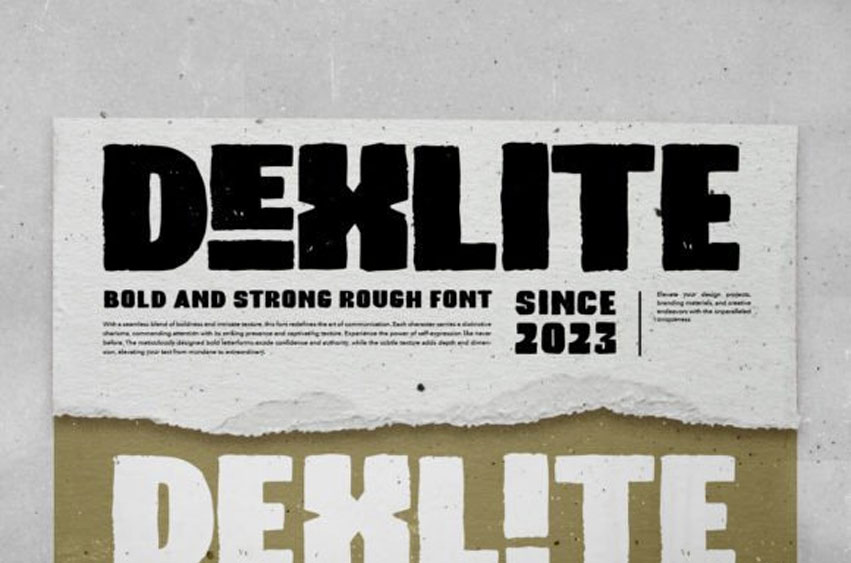
Dexlite Font
Dexlite Font is a bold and strong font with a textured and rough shape. This font is very suitable for vintage posters that need a handmade and rough look.
With strong looks, Dexlite will make your project stand out. This font also supports multiple languages!